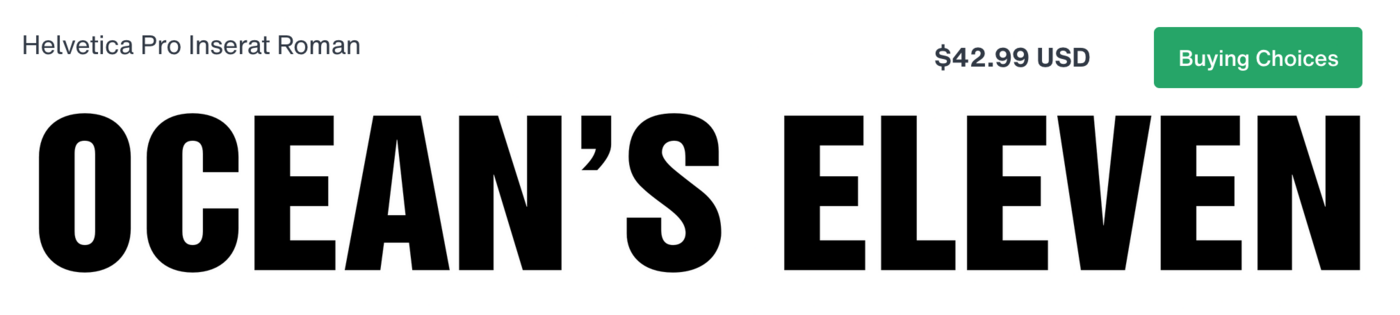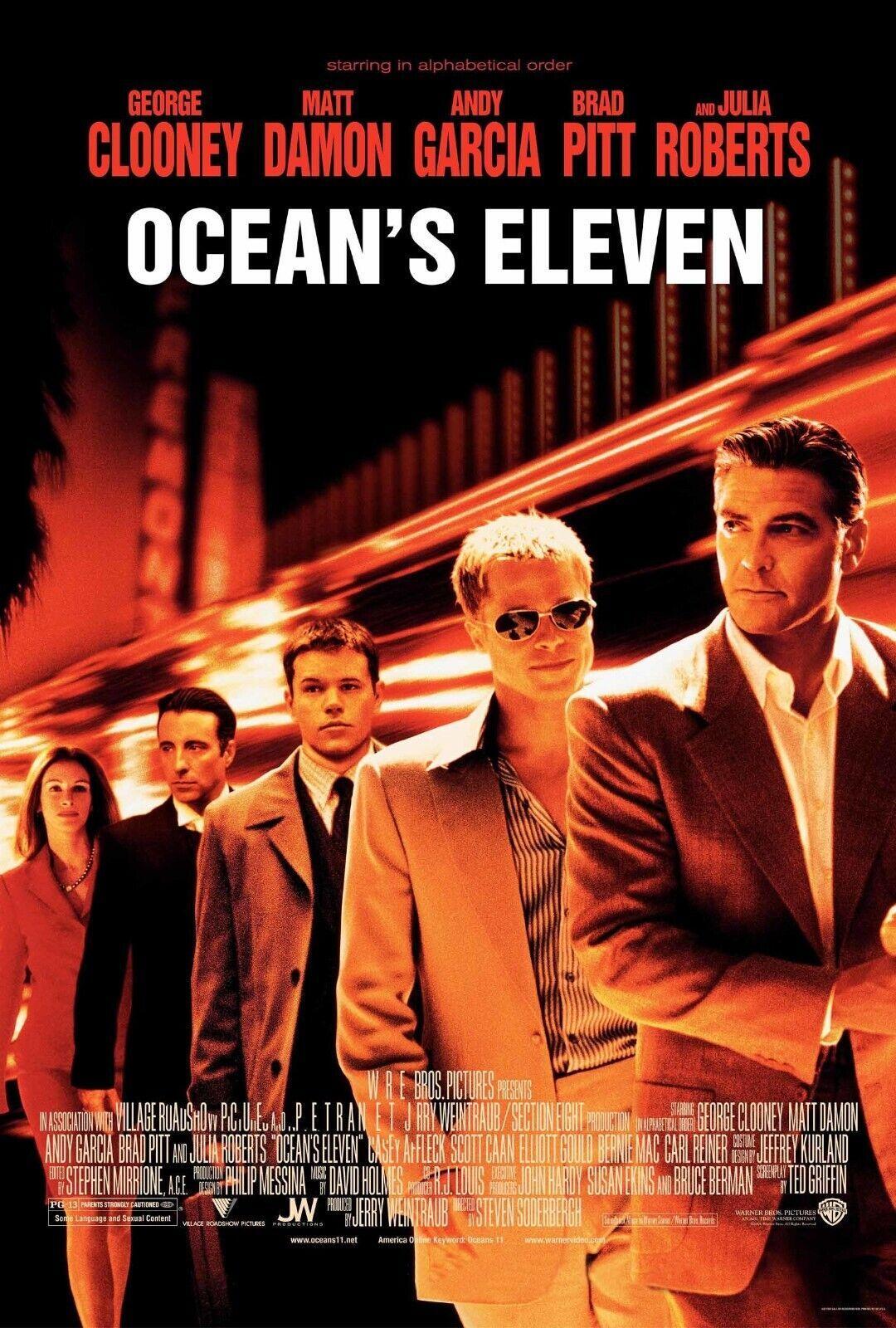
Looking for the font used for the tile on this "Ocean's Eleven" poster
What is the font used for the tile on this Ocean's Eleven poster? It's some form of Helvetica or similar, but I'm not finding quite the right match. Helvetica Inserat is the closest I looked at but not the one. I feel like I'm missing something obvious.
The cover for the soundtrack uses Impact with a different font for the apostrophe, as presumably they couldn't figure it out either, lol.
Thank you! I swore I had tried that and it wasn't correct, but sure enough I compared it again with the same font and it matches. I'm guessing it's because they used something else for the apostrophe and I had just written it off because of that.
I realized after posting this that both examples have the correct apostrophe and the editing software I was using to compare will only generate single quotation marks with the apostrophe key. So it was 100% me and my setup. But all of this made me aware of this fact (which I probably should have figured out a little earlier, lol), so many thanks!
And sharper.
You're right—the left side of the tail is still curved on the poster, but they squared off/straightened the right side.